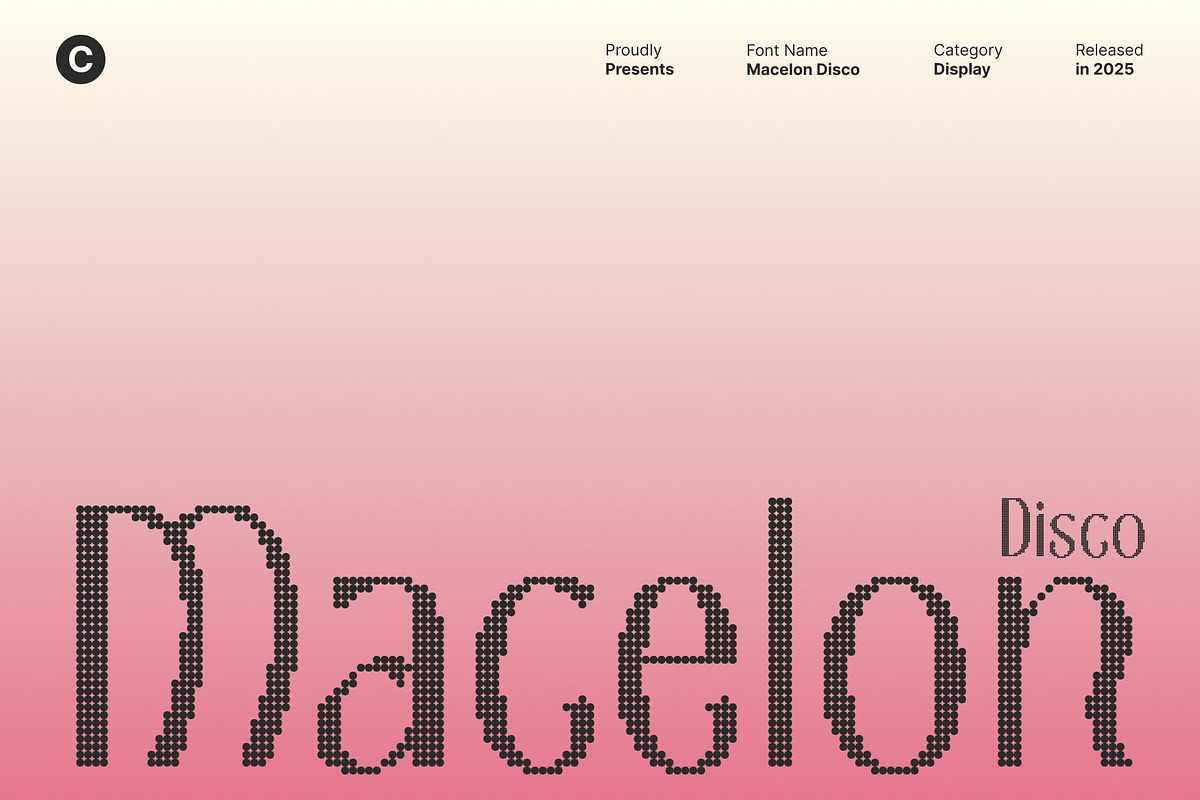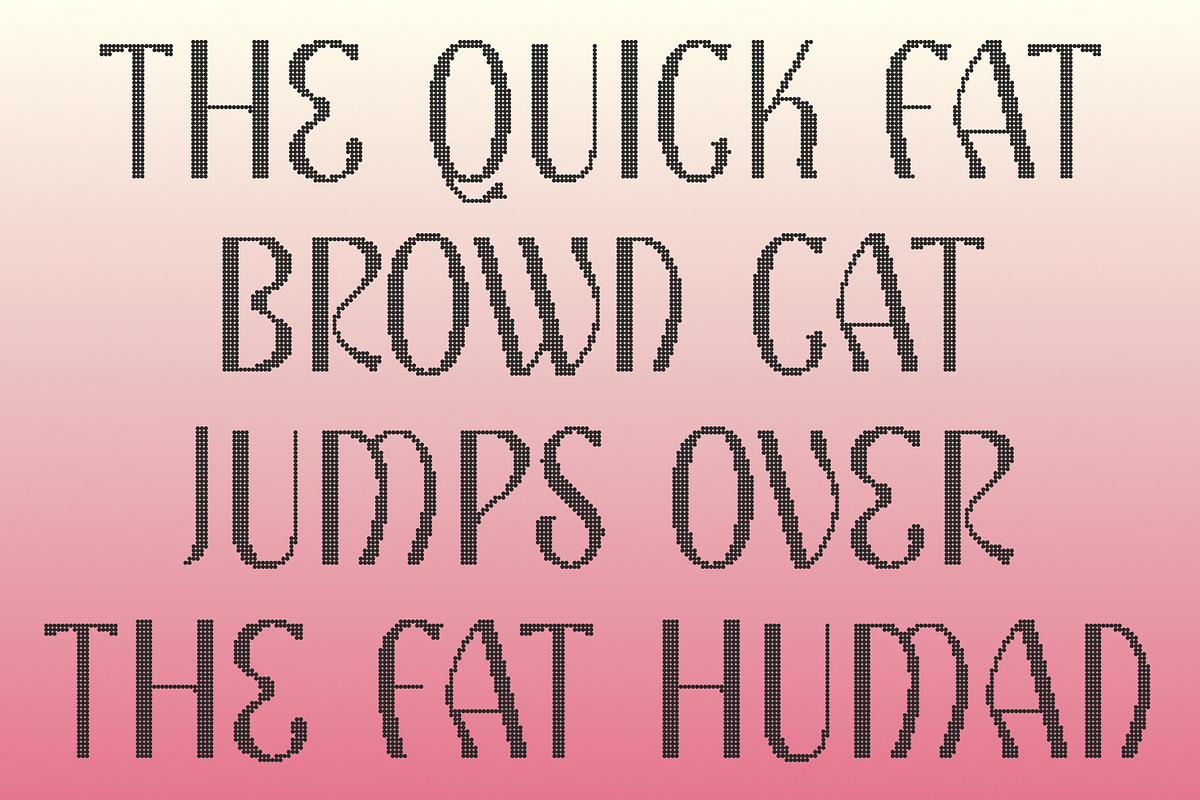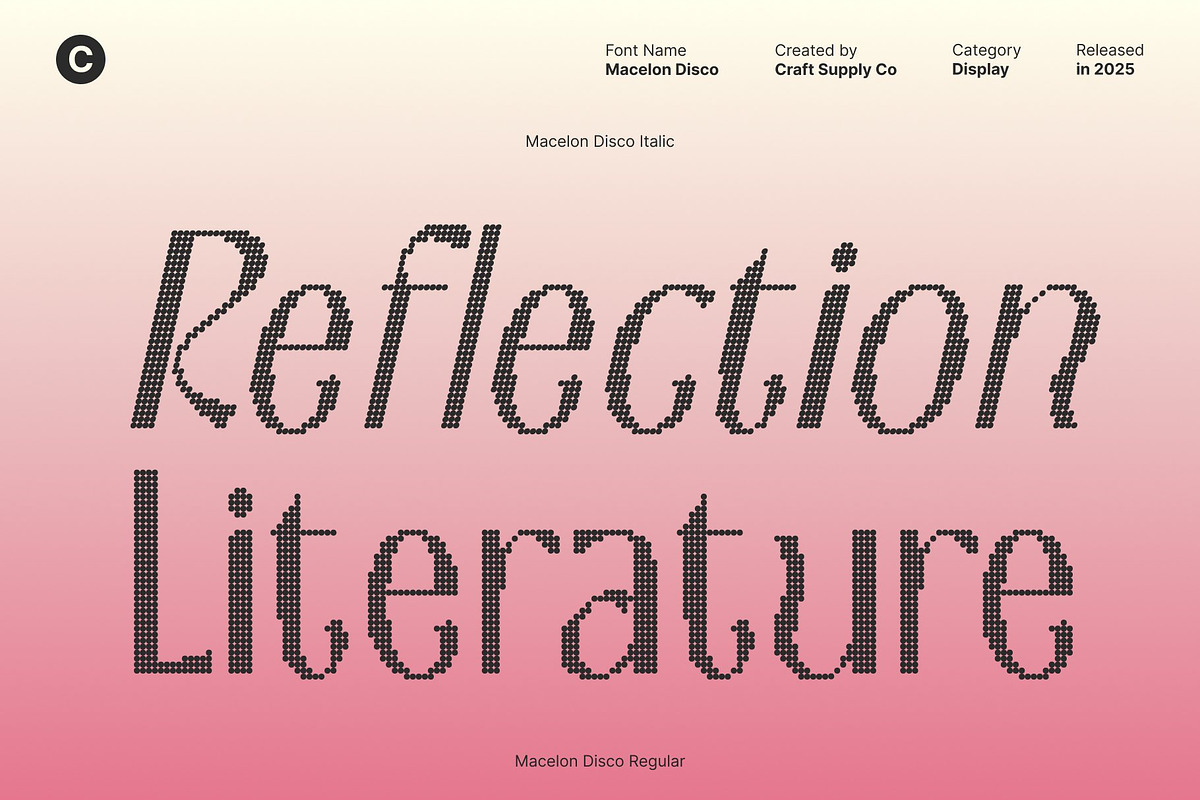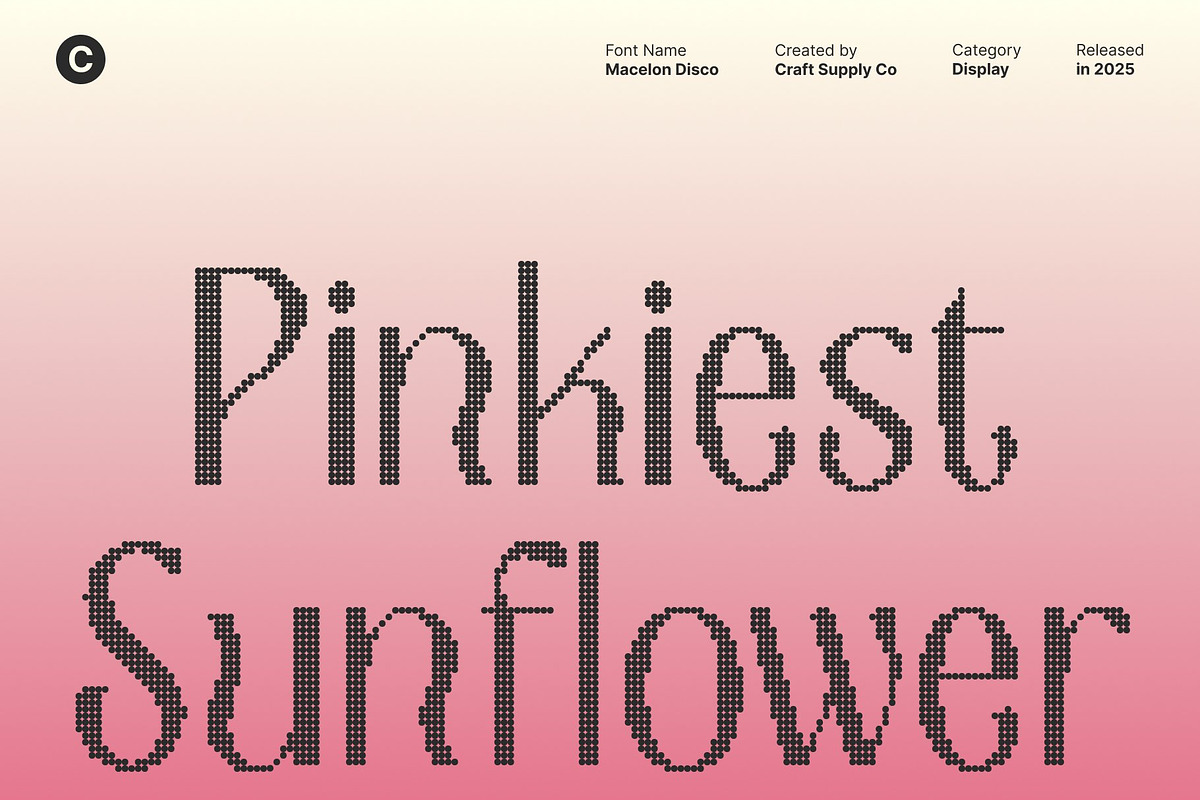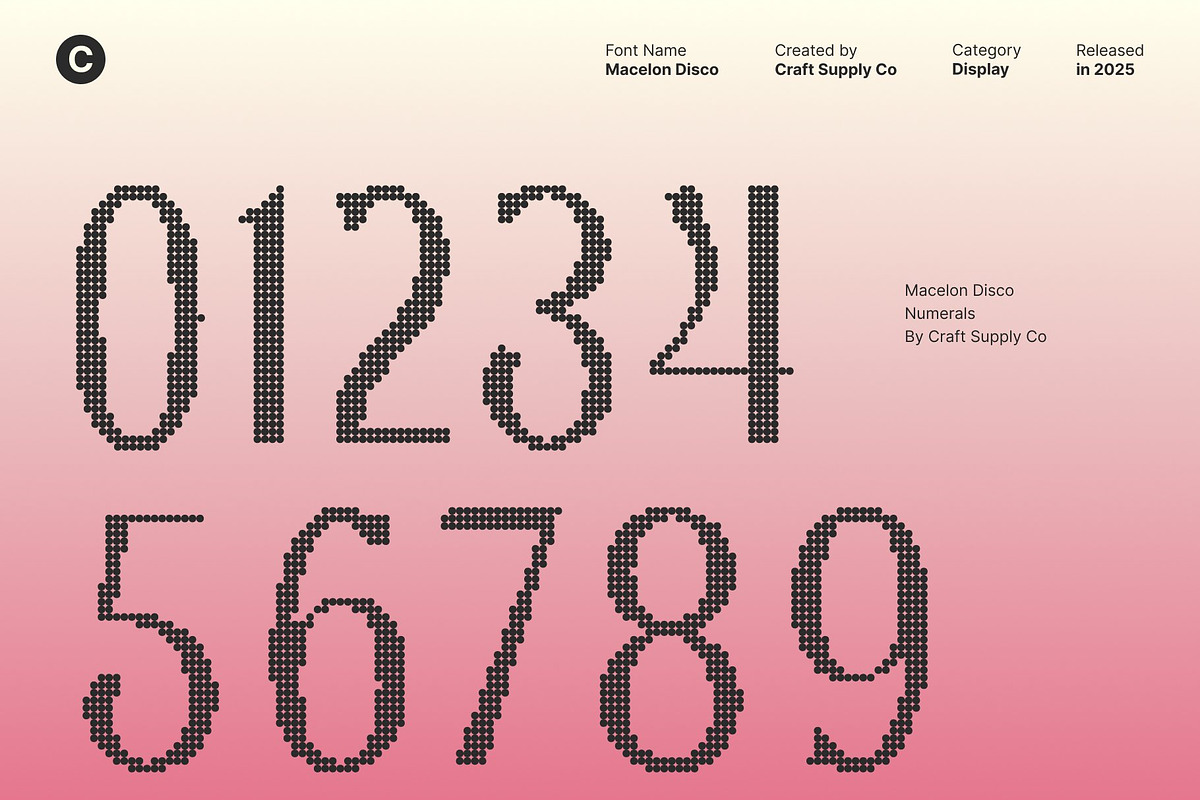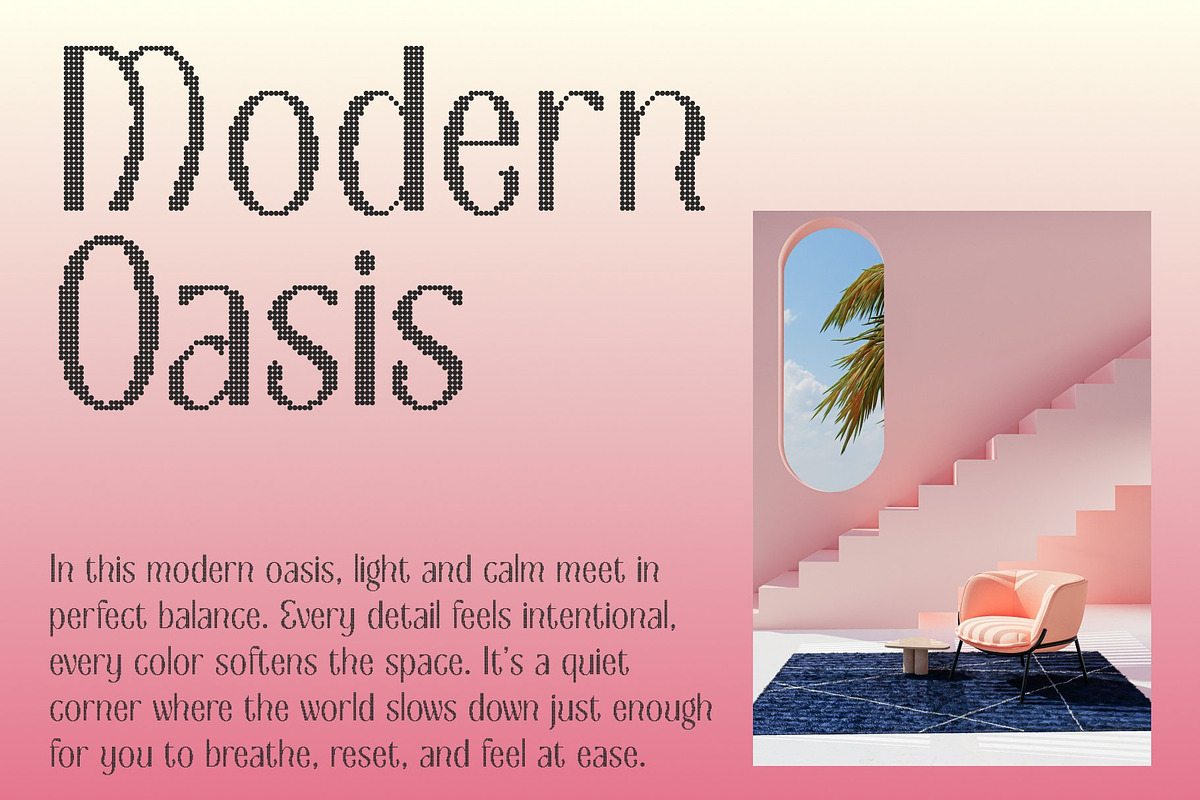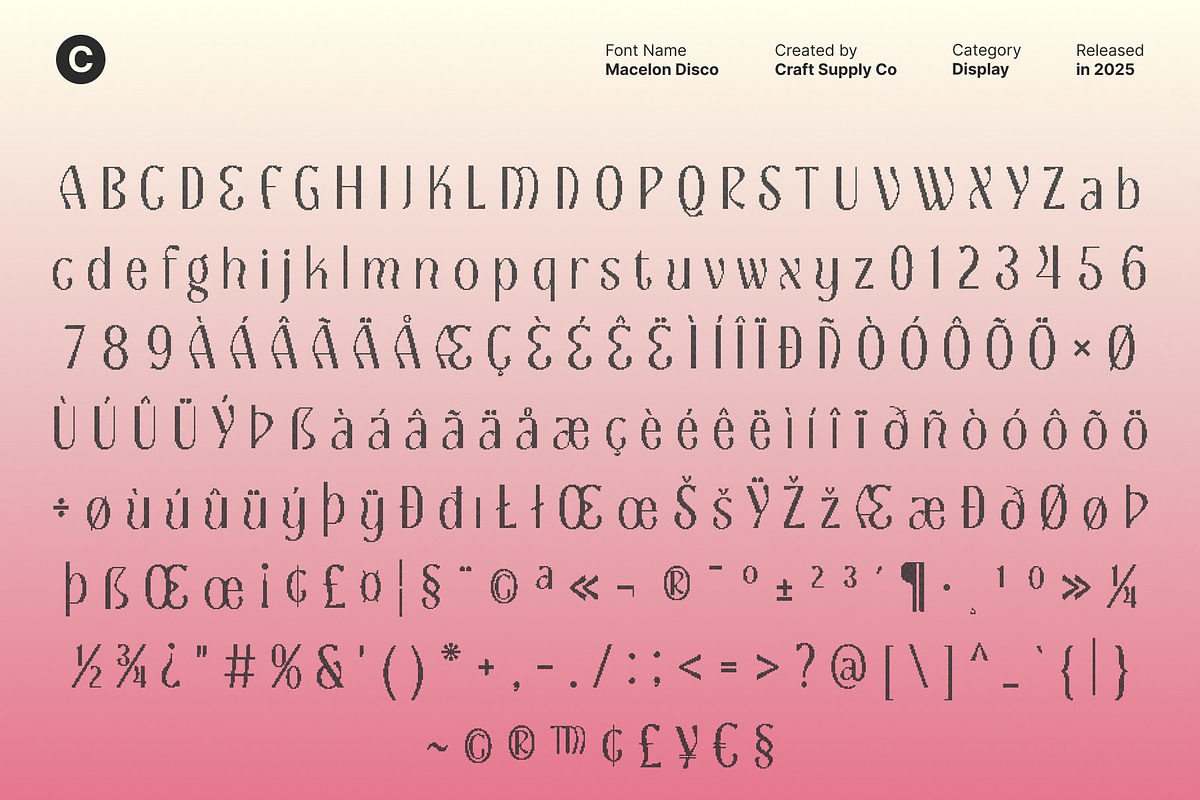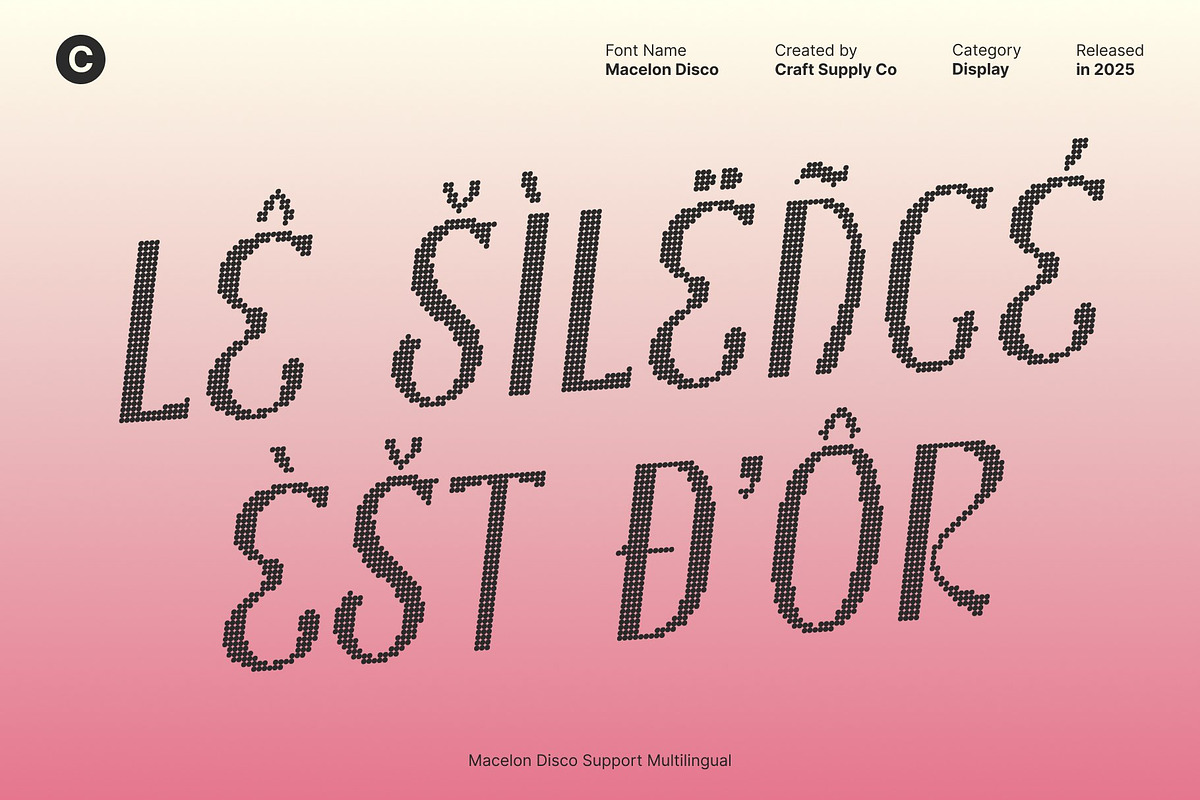
Macelon Disco
Macelon Disco – Pretty Display Font with Glamorous Disco Flair
Graceful Curves with Delicate Beauty Delicate and stylish, this pretty display font brings elegance to every letter through its smooth, graceful curves. Each character feels soft, feminine, and expressive, adding a beautifully refined touch to your designs. Its charming forms create a visually pleasing flow that enhances themes of joy, celebration, and youthful sophistication.
Disco Style for Glamour and Festive Energy The added disco effect infuses the typeface with sparkle and lively personality. This shimmering detail introduces a glamorous, festive, and fun vibe—perfect for designs that aim to shine brightly and capture attention. The blend of gentle curves and sparkling disco texture creates an irresistible balance of sweetness and bold expression.
Perfect for Invitations, Posters, and Girlish Branding Ideal for party invitations, playful posters, lifestyle products, and girlish branding, this font instantly elevates visual appeal with its stylish presence. Whether used for headlines, event titles, packaging, or decorative typography, it adds charm and excitement to every layout.
A Blend of Beauty, Fun, and Festive Style Combining delicate letterforms with dazzling disco flair, this typeface offers a unique aesthetic that feels both elegant and vibrant. It’s the perfect choice for designers seeking a font that radiates femininity, glamour, and joyful celebration all in one captivating style.
- Macelon Disco Regular
- Macelon Disco Italic